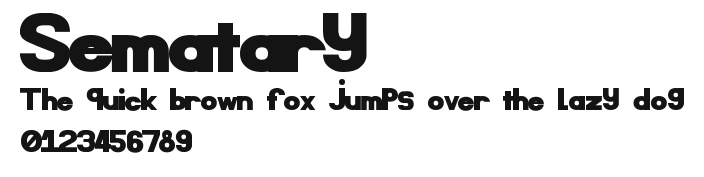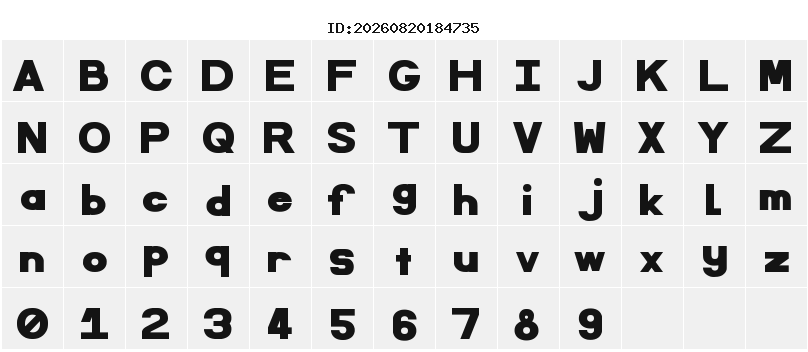
• Font Name: Sematary
• Full Font Name: Sematary
About Sematary.ttf
Sematary.ttf is a modern, elegant sans-serif font designed for ultimate readability and visual harmony. Perfect for branding, headlines, web design, and print materials.